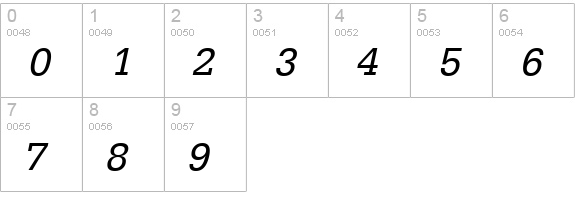
EgyptienneStd-Italic Font Details
EgyptienneStd-Italic is a distinctive, italic variant in the EgyptienneStd typeface family \xE2\x80\x94 well suited to design and typography projects.
EgyptienneStd-Italic font is a classic and elegant typeface that exudes sophistication and style. With its slanted italic design, this font adds a touch of flair and uniqueness to any text or design project. The sleek and refined lines of EgyptienneStd-Italic make it perfect for conveying a sense of luxury and professionalism. What's even better is that EgyptienneStd-Italic font is available for free download at FontsMarket.com. This means you can easily access this stunning font and use it in your projects without any cost. Whether you're designing a logo, creating a brochure, or crafting a website, EgyptienneStd-Italic font will elevate your work to the next level. Don't miss out on this opportunity to enhance your designs with this beautiful and versatile font. Download EgyptienneStd-Italic today and take your projects to new heights.